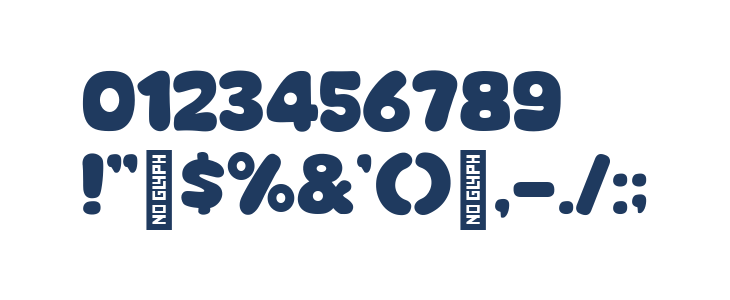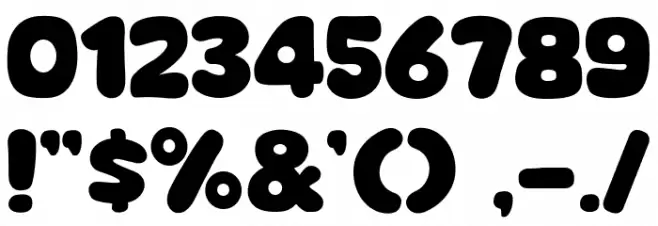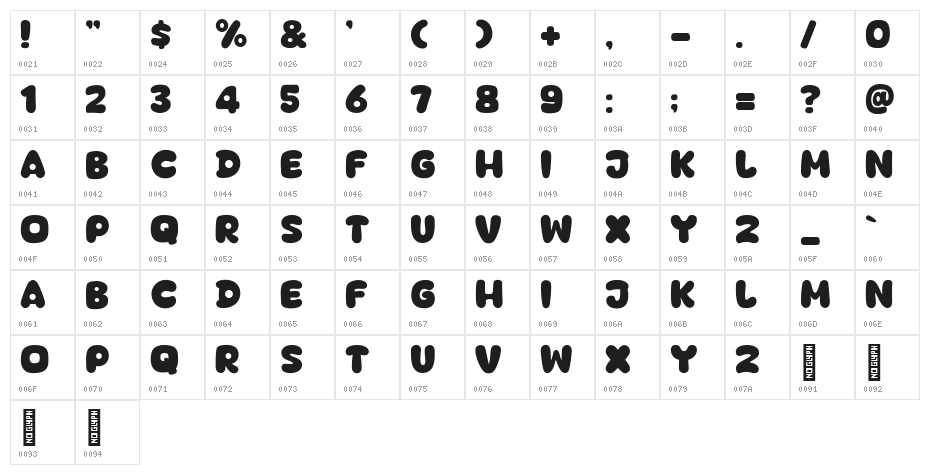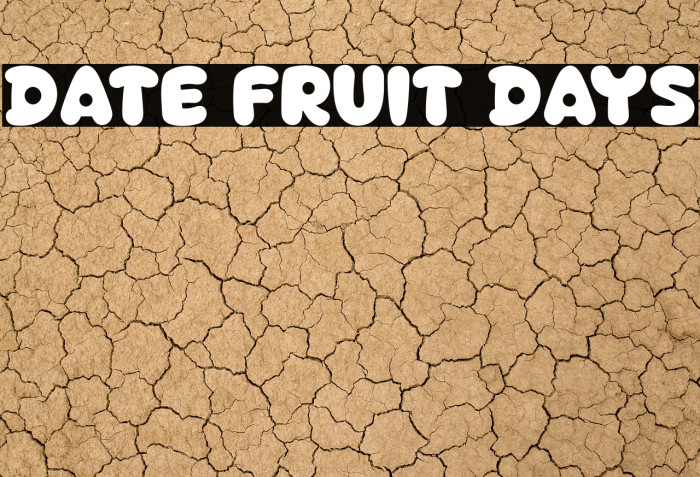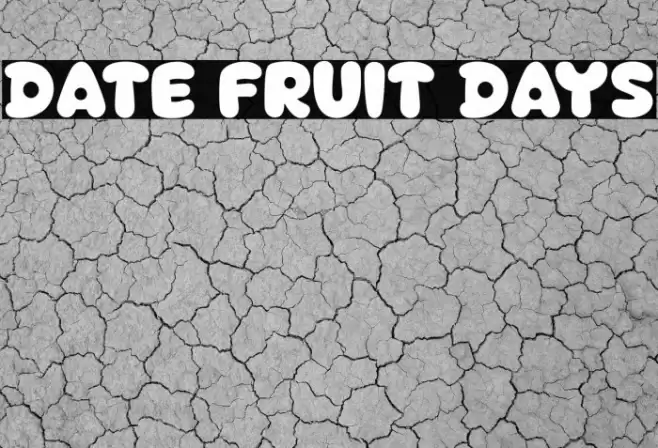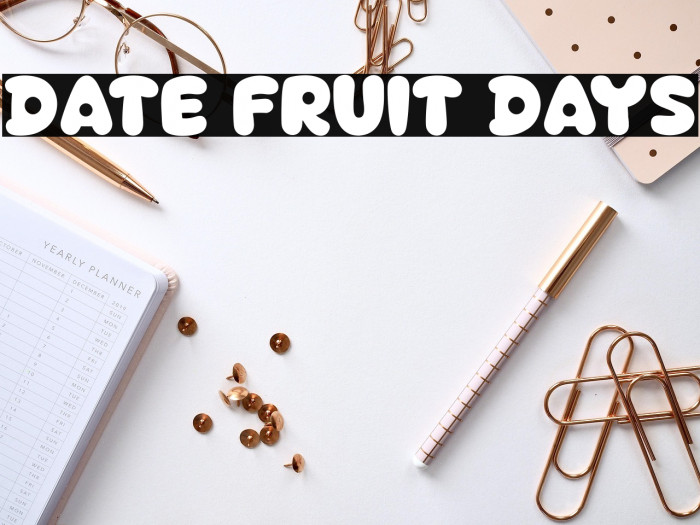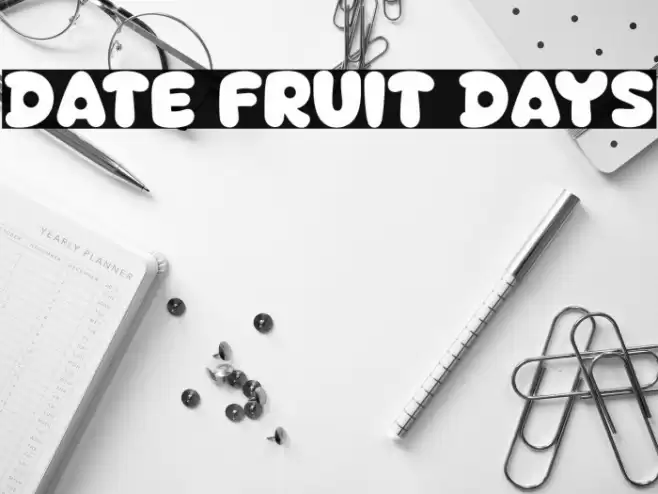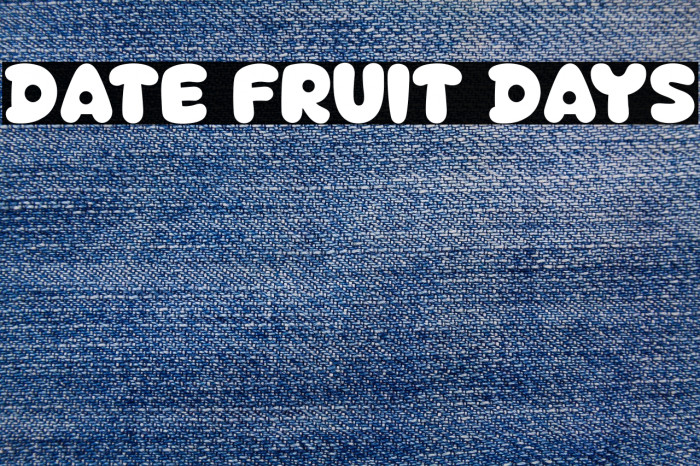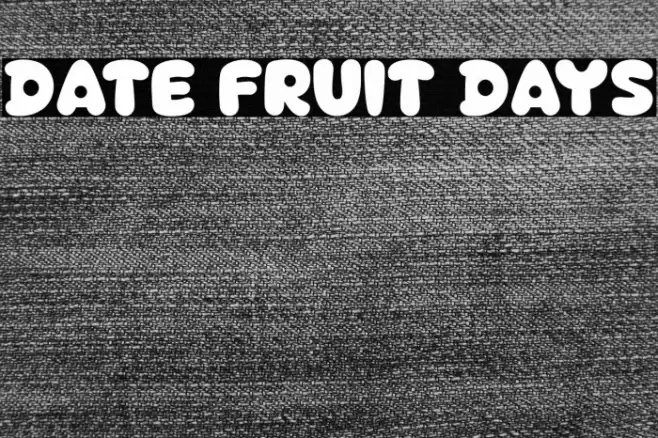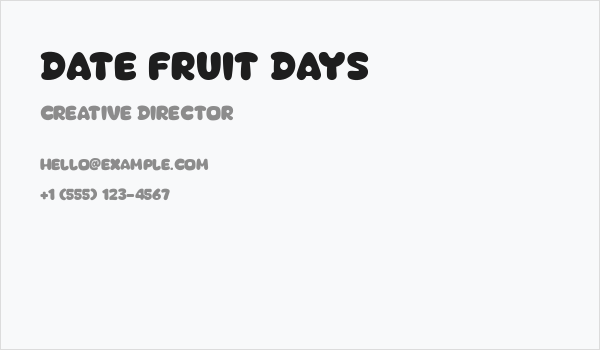
Date Fruit Days Font
Date Fruit Days Description
This font features bold, rounded characters with a playful and bubbly appearance. The letters are thick and have a uniform stroke width, giving them a strong presence on the page. The rounded edges and lack of sharp angles contribute to a friendly and approachable feel. The numbers and special characters maintain the same style, ensuring consistency across all elements. This font is highly legible and stands out due to its substantial weight and unique design.
| Proposed Projects | Ideal for children's books, playful branding, posters, and any project requiring a fun and approachable aesthetic. |